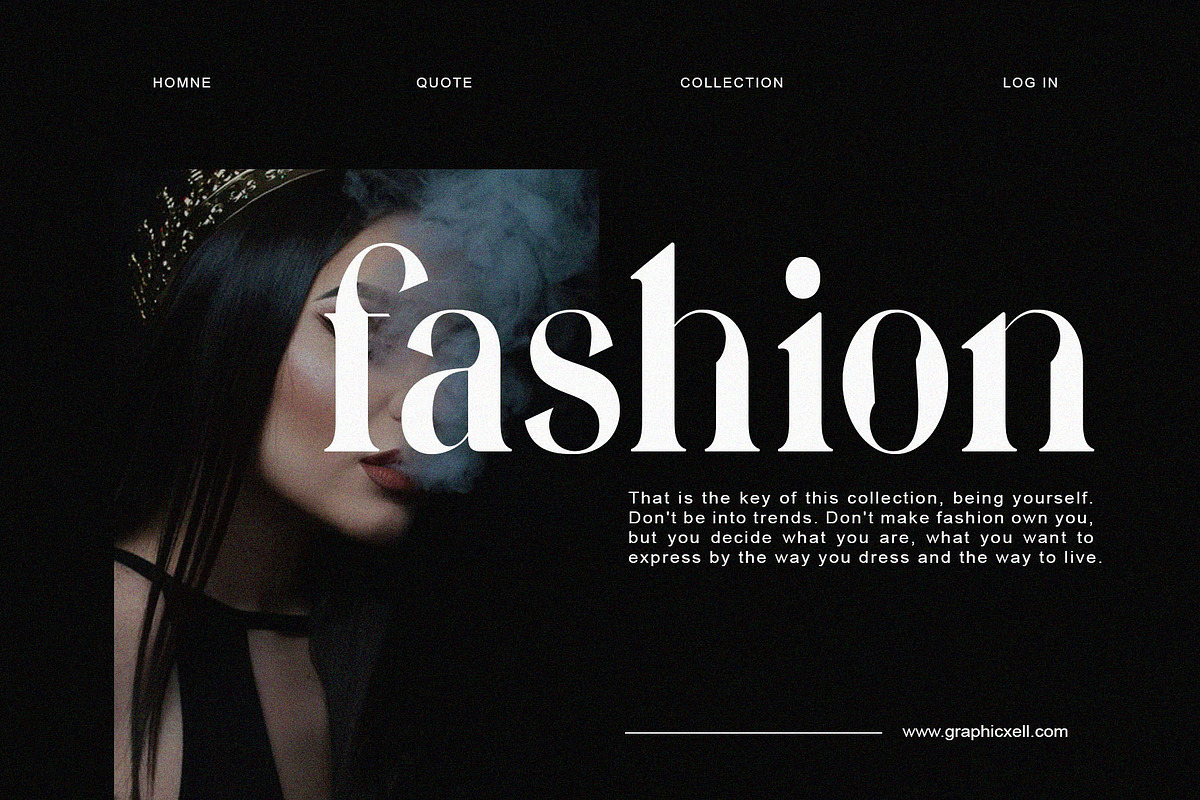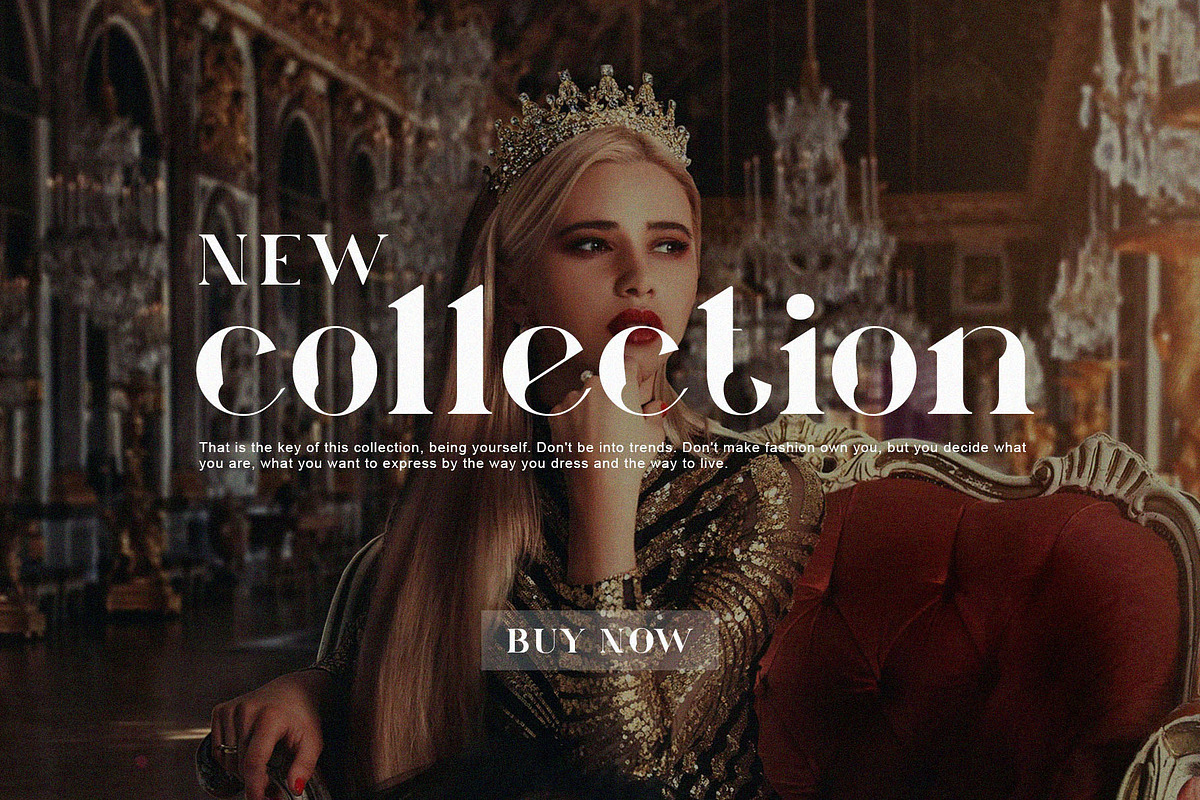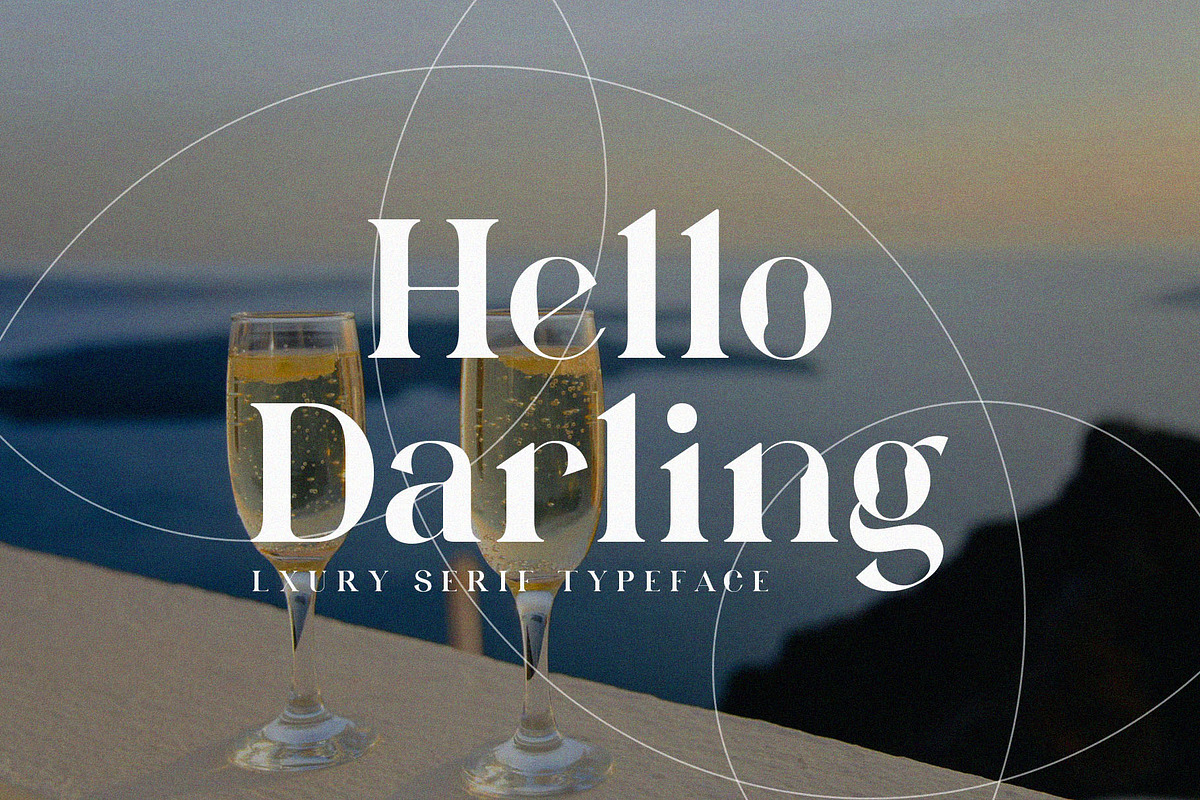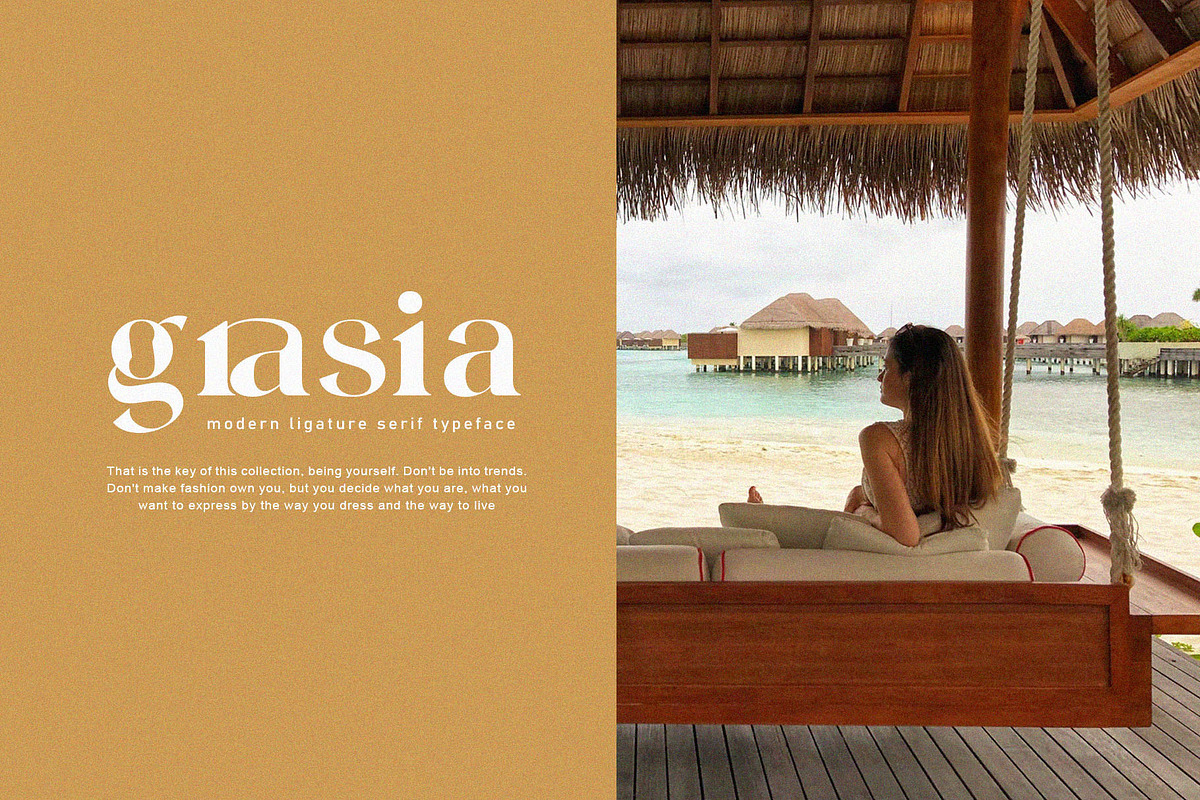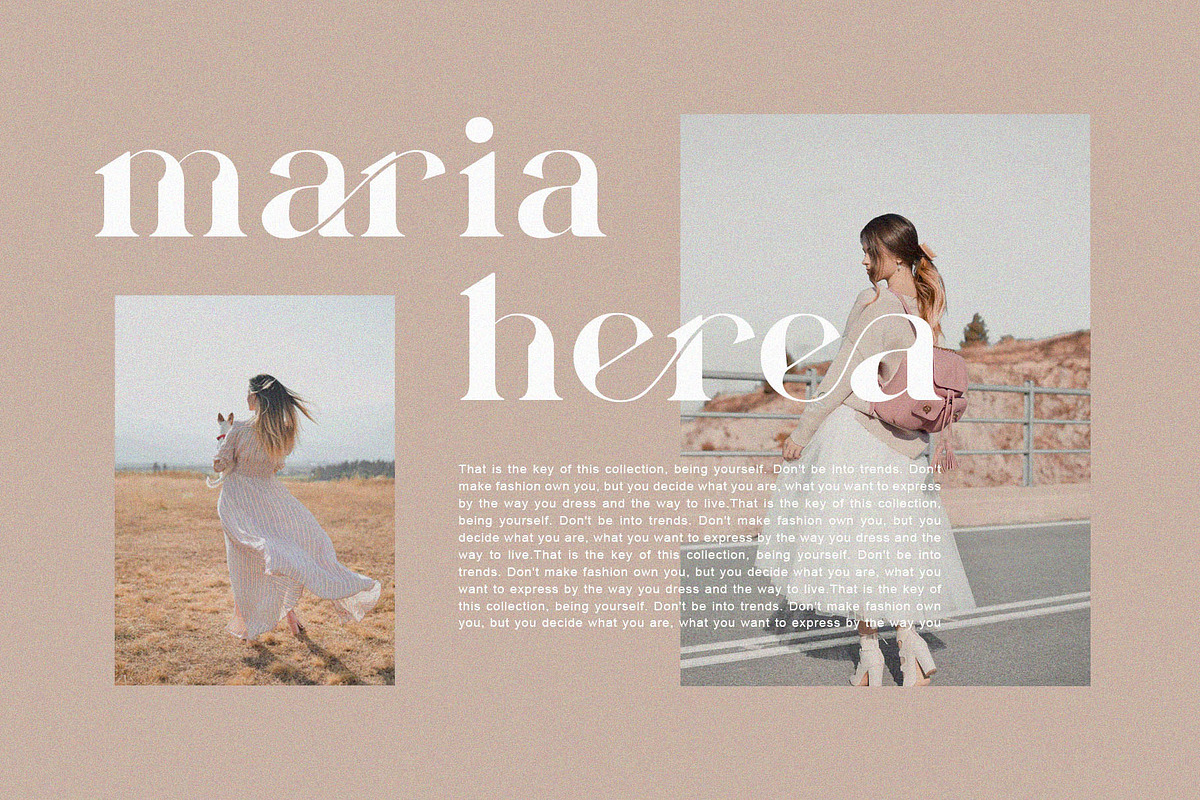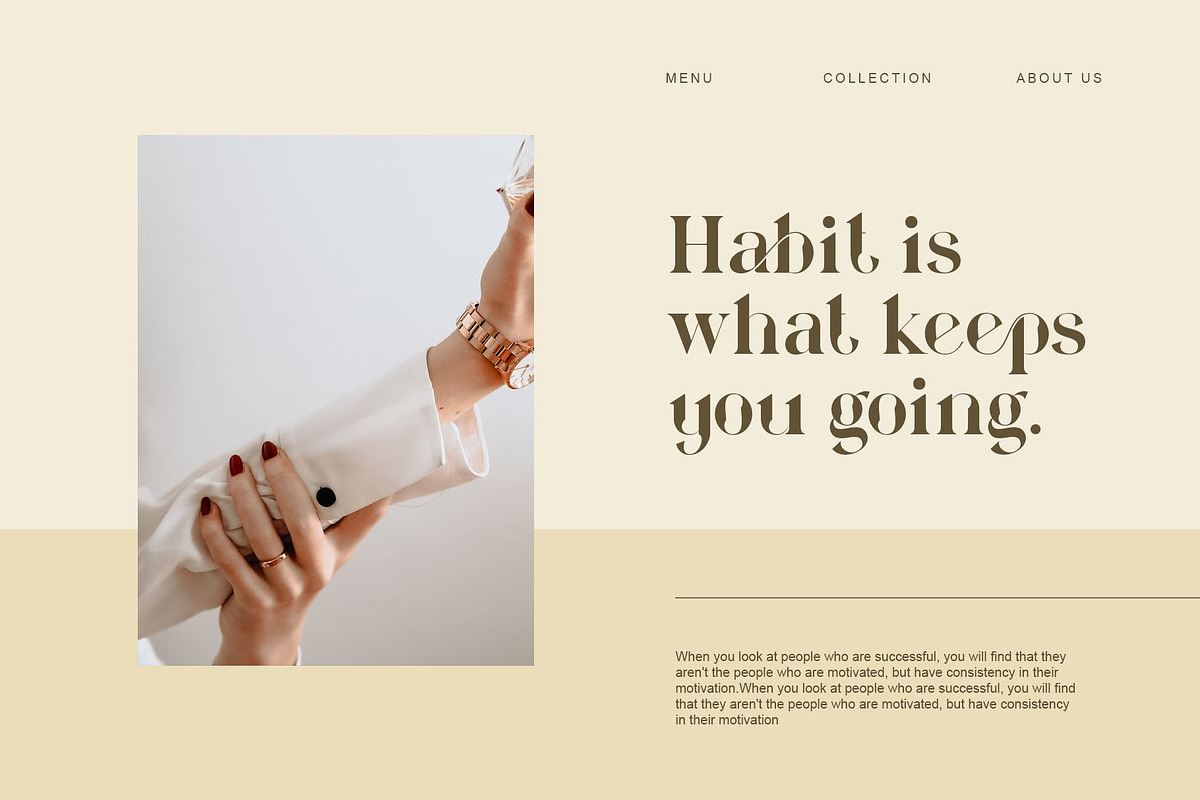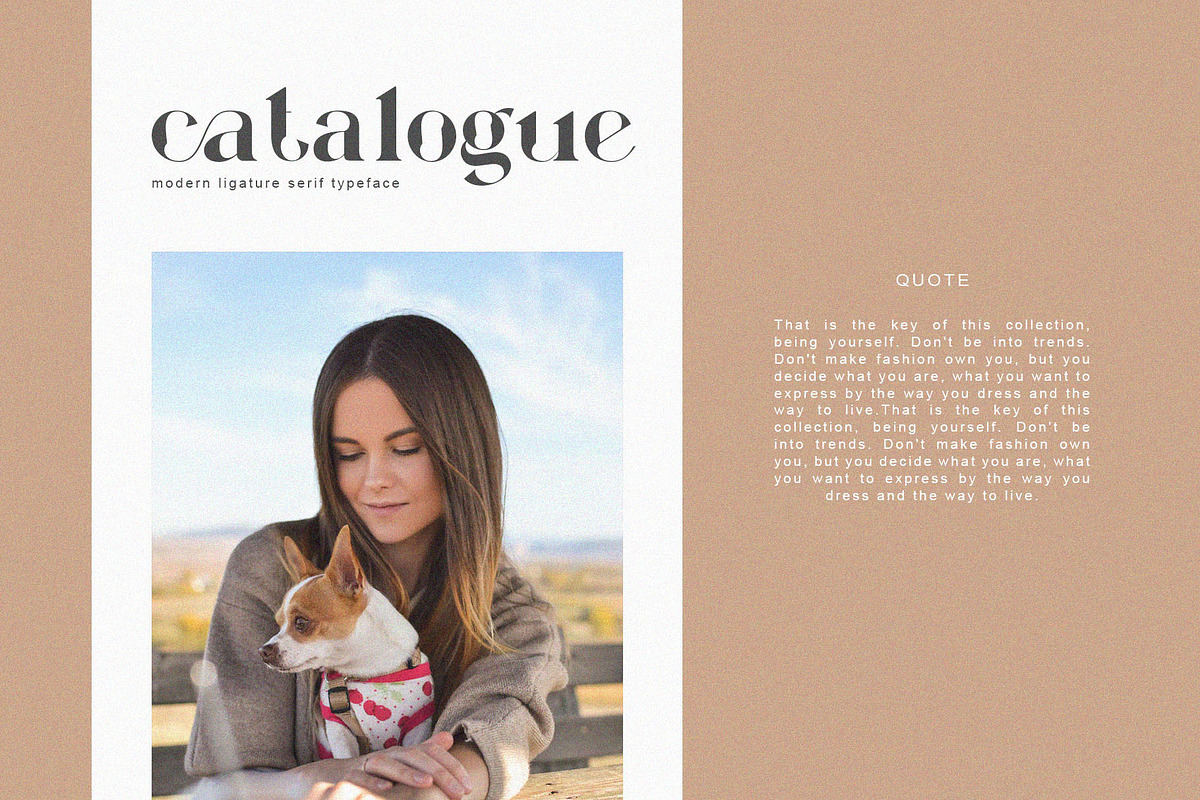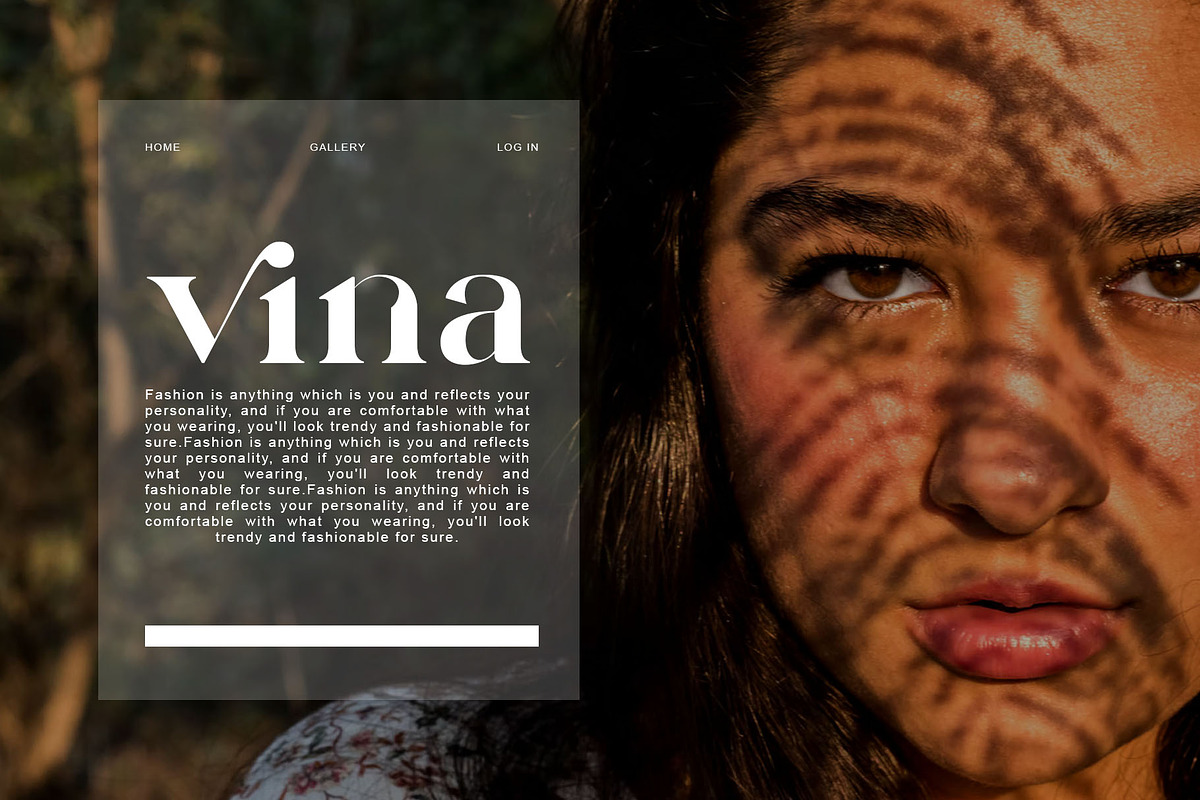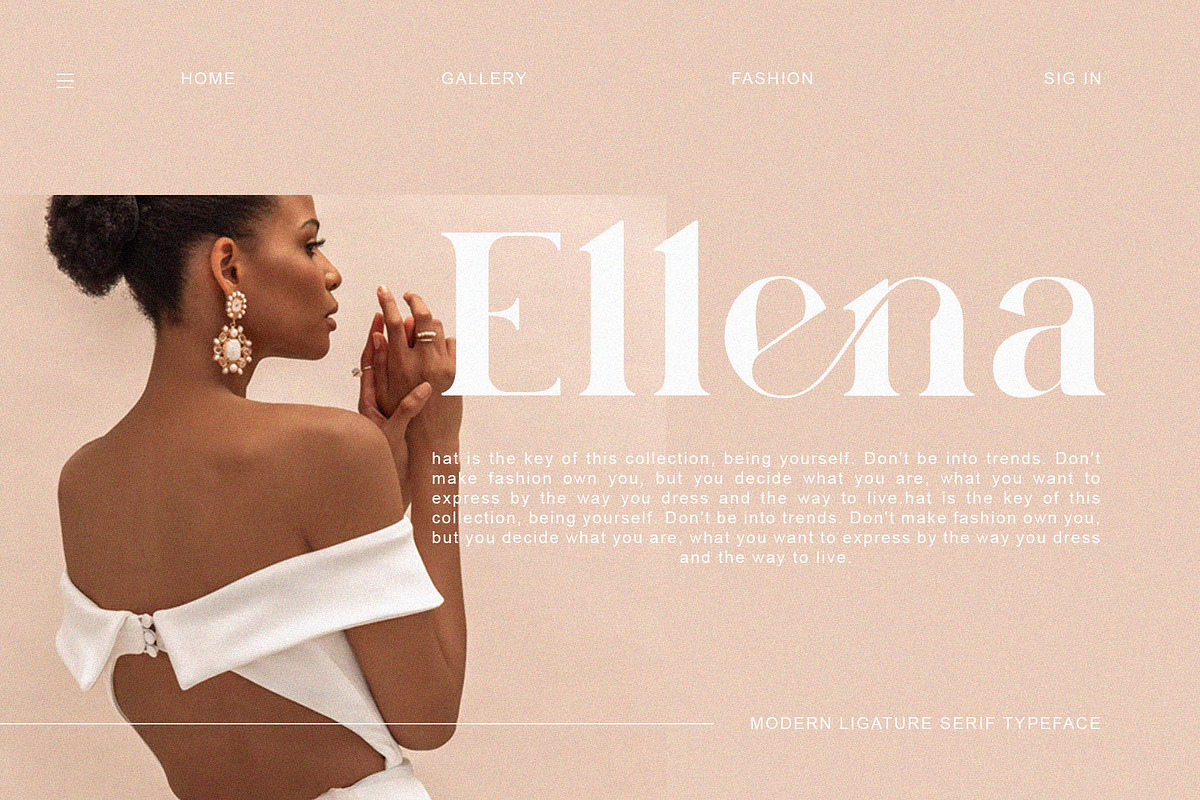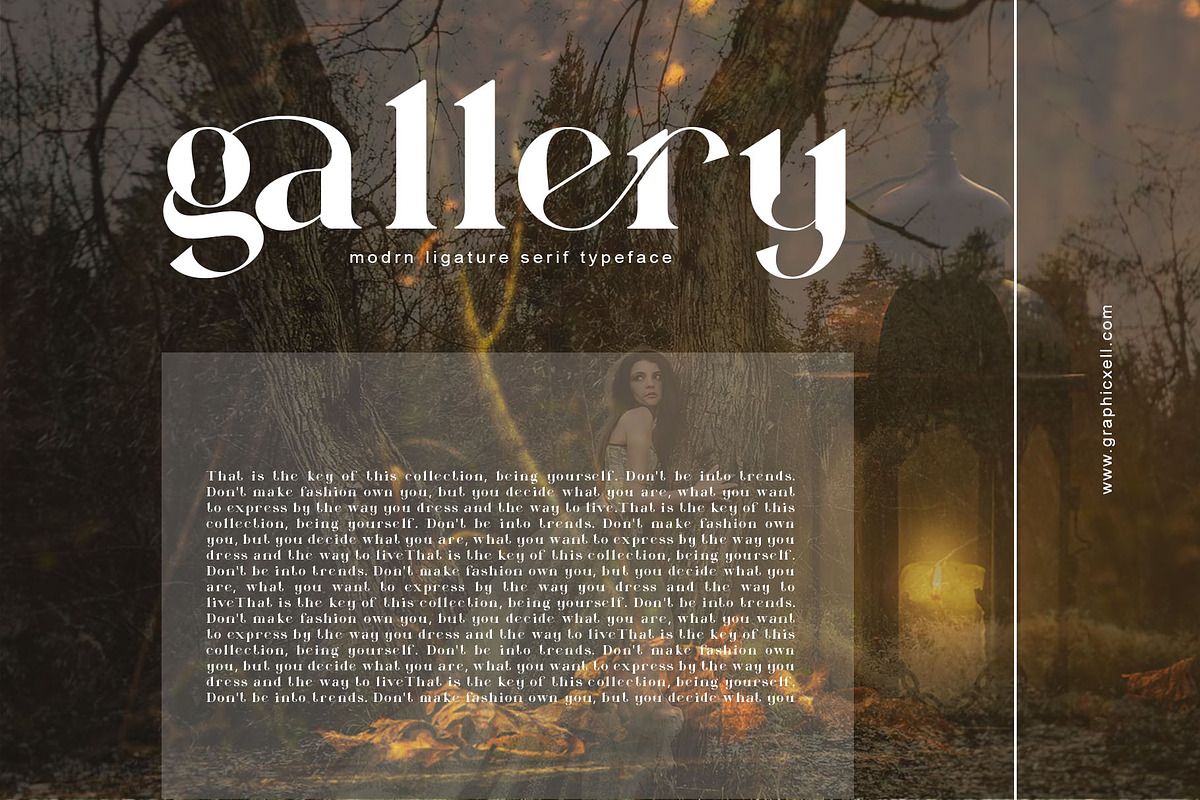
Famous Ligature Typeface
Famous inspired by the famous minimalist logo perfect for the purposes of designing templates, brochures, videos, advertising branding, logos, invitation, layout design, elegant crafting, beauty design and more.